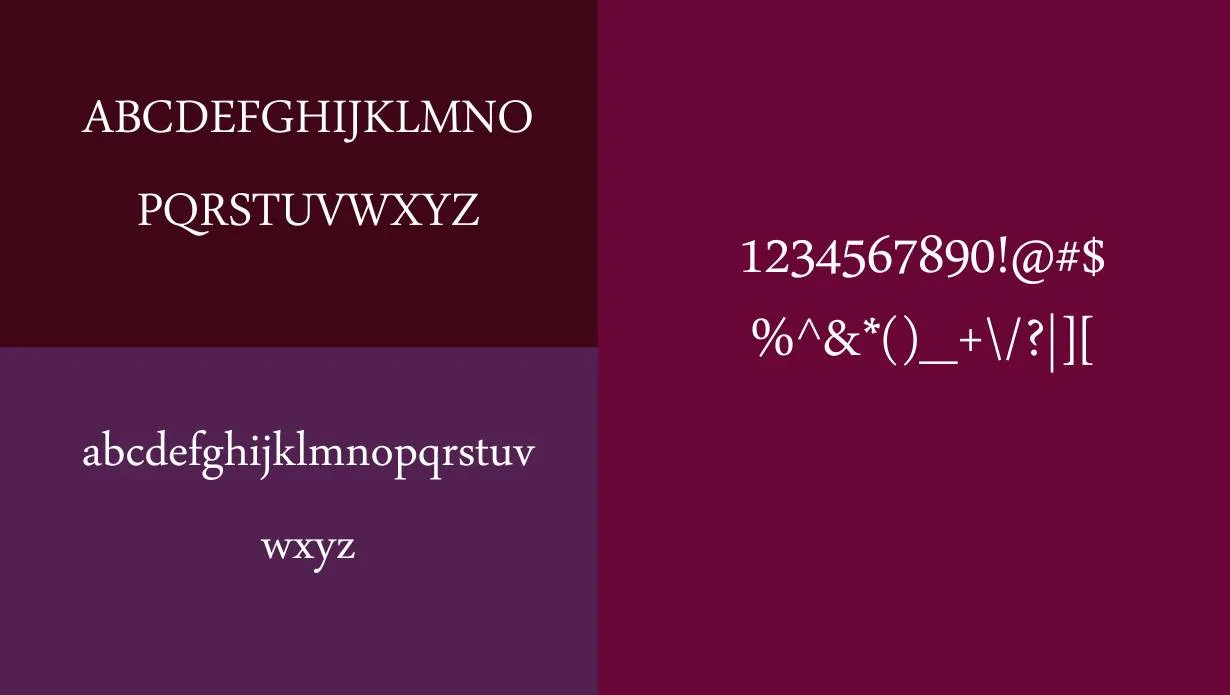
DaunPenh Font is a playful and artistic typeface, characterized by its quirky yet structured appearance. It’s often utilized in designs targeted at children, like storybooks, educational materials, and fun posters.
| Name | DaunPenh Font |
| Designer | OM Mony |
The font’s friendly and approachable style makes it a popular choice for social media content, promoting events, and creating a welcoming atmosphere in various graphic designs. Its unique, slightly whimsical aesthetic helps capture attention and create a cheerful vibe.